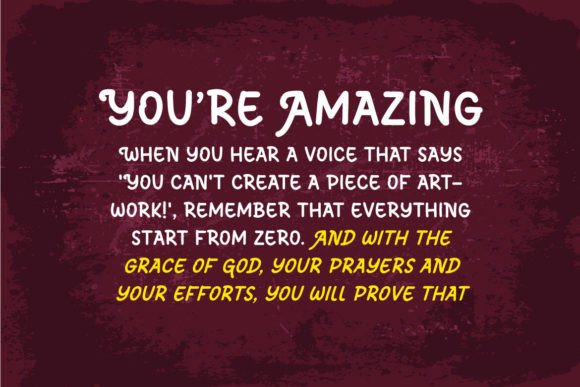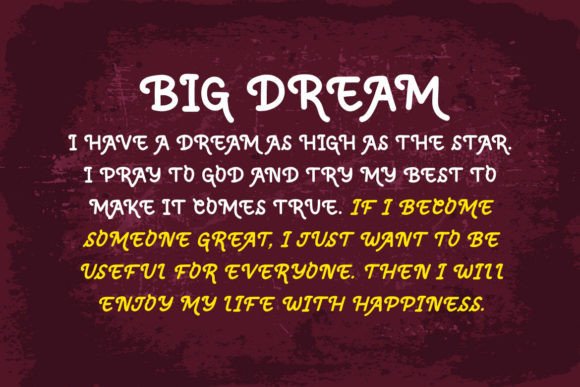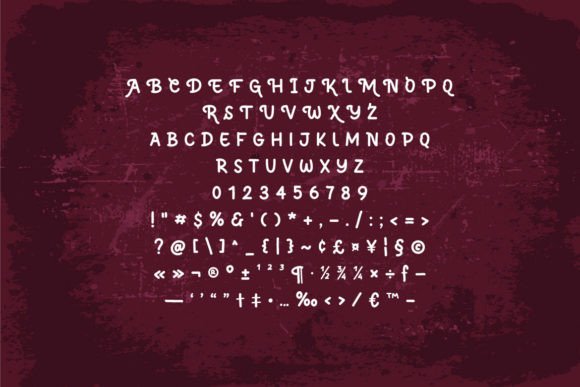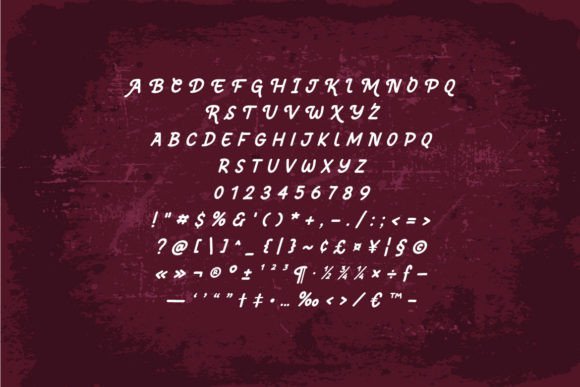
Introduction to My Rose Font Font
Fonts play a crucial role in design, and the My Rose Font font is a typeface that brings both character and versatility to any project. Whether you’re working on a branding project, a website, or a print design, the My Rose Font font offers a unique style that can elevate your work.
My Rose is a bold comic font.
My Rose can be used in any work such as a comic book, poster, school, flyer, book title, advertisement, social media content, logo, and many more .
Key Features of My Rose Font Font
Why Choose My Rose Font Font?
The My Rose Font font is more than just a typeface – it’s a design tool that helps you communicate your message with style and clarity. Its unique character set and versatile design make it suitable for a wide range of applications, from elegant invitations to bold headlines.
With its carefully crafted letterforms and balanced proportions, the My Rose Font font ensures readability and visual appeal across all mediums.
What makes My Rose Font font special?
The My Rose Font font stands out with its unique design, exceptional readability, and versatility across various design applications.